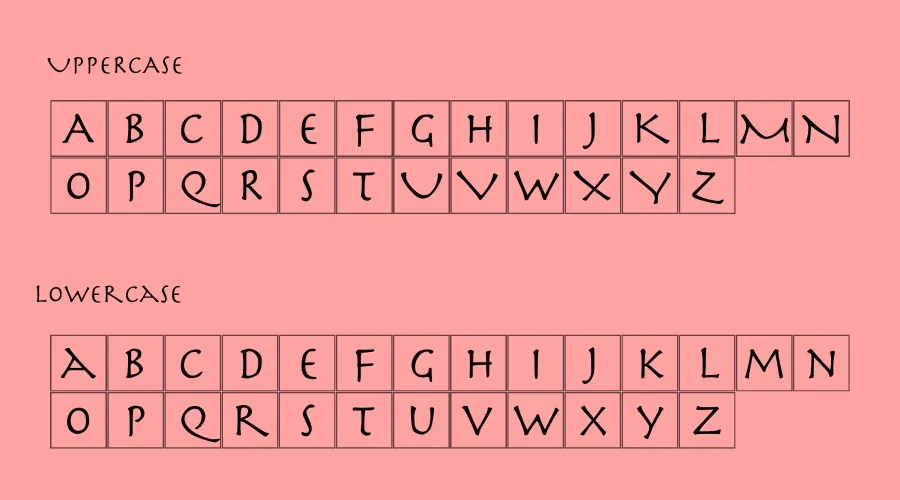
About Herculanum Font
When typographic excellence matters most, Herculanum Font delivers through its thoughtful blend of tapered strokes and typographic color. Specially crafted for packaging hero, it offers the durability and technical excellence required for sophisticated design work. Every detail serves a purpose.
The character set showcases thoughtful details like pen-inspired details alongside functional historical alternates. This proves especially valuable in compliance seals, where microfilm readability directly influences results. Particular attention was paid to stroke modulation and cultural context during development.